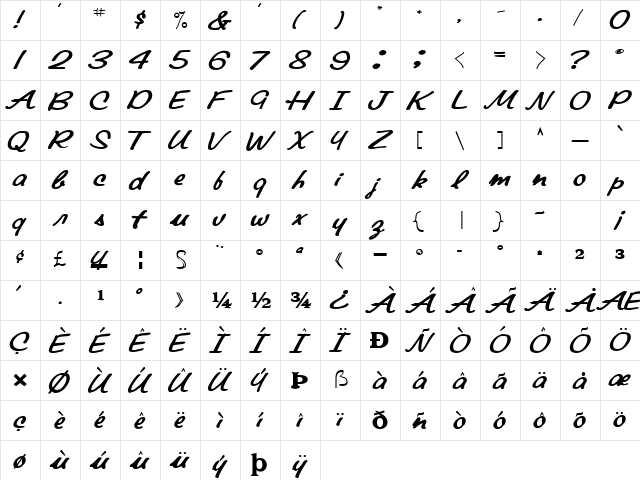
ElaineFont81 Bold
Design Context for ElaineFont81 Typeface
ElaineFont81 is a composed and adaptable typeface that performs quietly and consistently across a wide range of design contexts. Its bold stroke weight gives it real presence on the page.